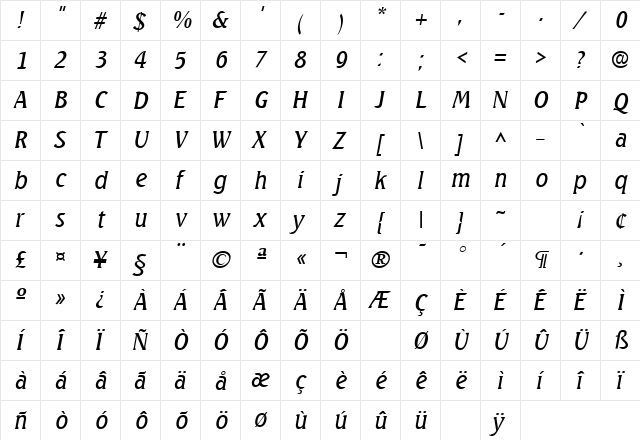
SeagullLH Italic
Design Context for SeagullLH Typeface
SeagullLH is a composed and adaptable typeface that performs quietly and consistently across a wide range of design contexts. Its italic angle brings a sense of urgency and motion to the letterforms.
Pro Tip: Use SeagullLH for emphasis, pull quotes, and subheadings where its slanted energy can add rhythm to the layout.